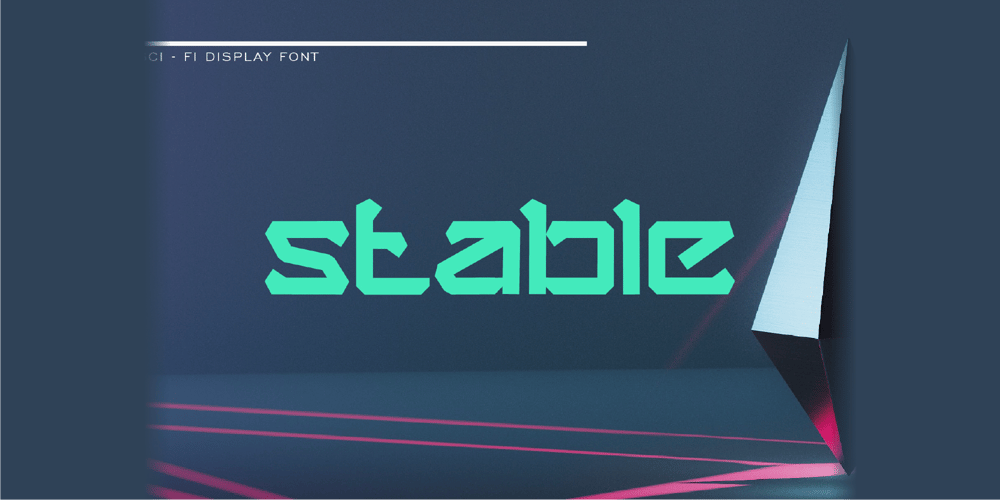
Stable Font Family was designed by Wahyu Aji Prasetyo and published by WAP Type. Stable contains 1 styles and family package options. stable logo fontstable is a new font for design of sharp and powerful logos. The font is suitable for creating wordmarks, Logo, titles, taglines. Use alternates to emphasize separate letters in your text.